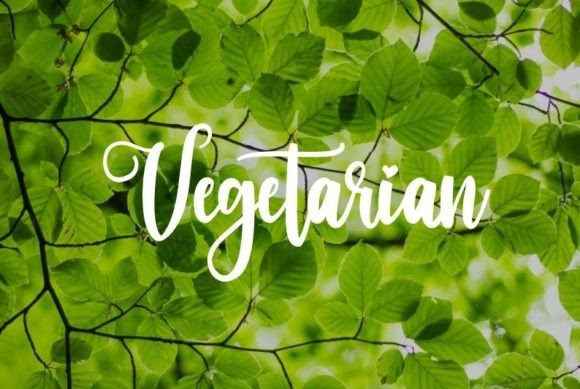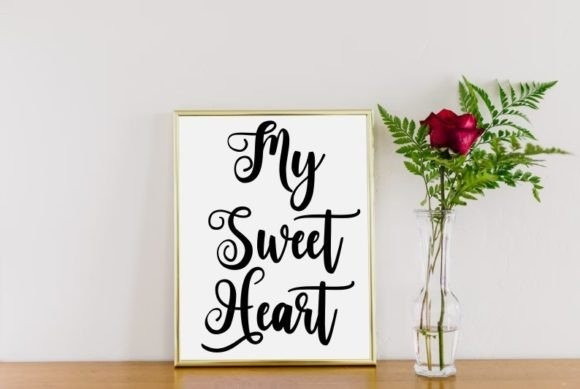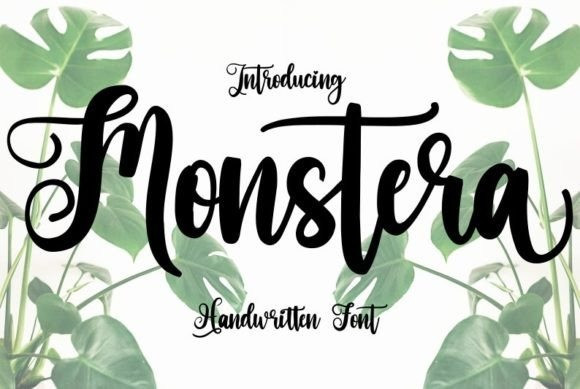
Monstera Font
Monstera Script Font is a modern and flowing handwritten font. Fall in love with its incredibly versatile style, and use it to create spectacular designs!
Based on pointed-pen lettering, Monstera features slightly condensed characters and a measured rhythm.